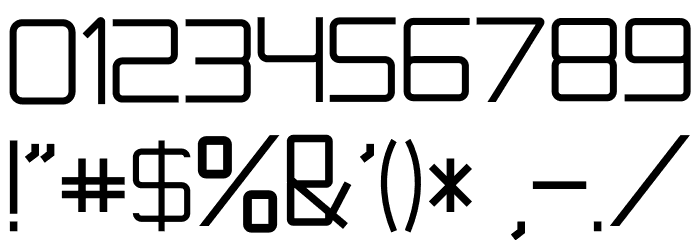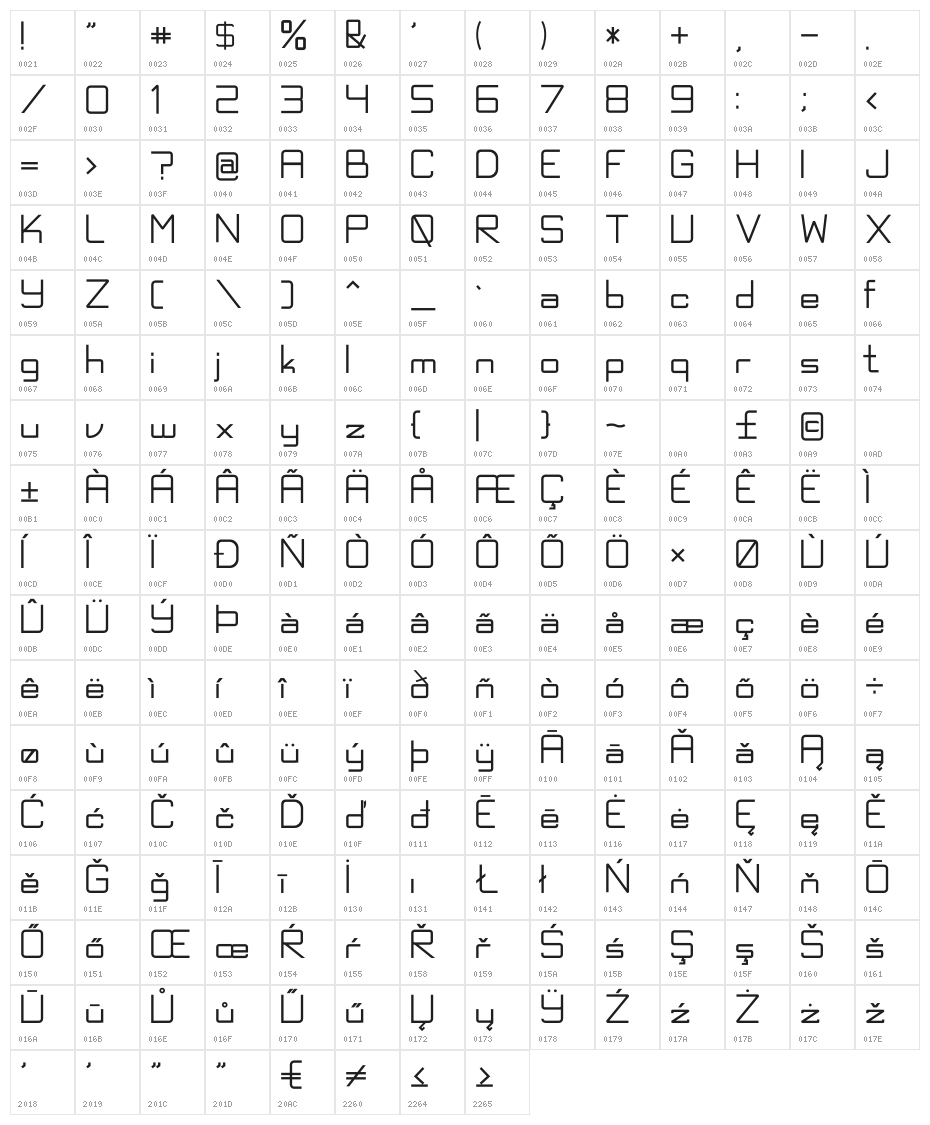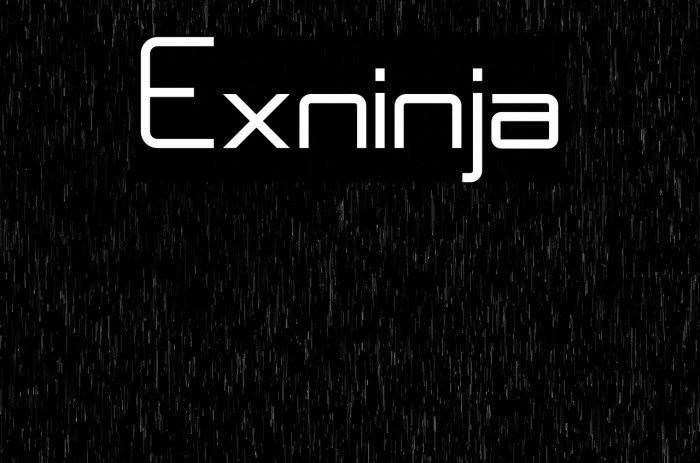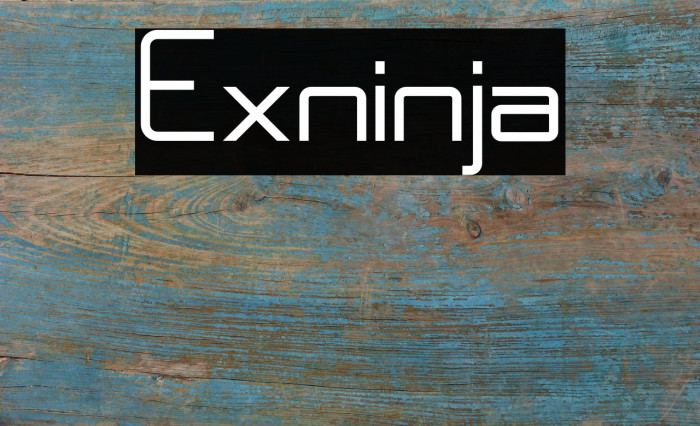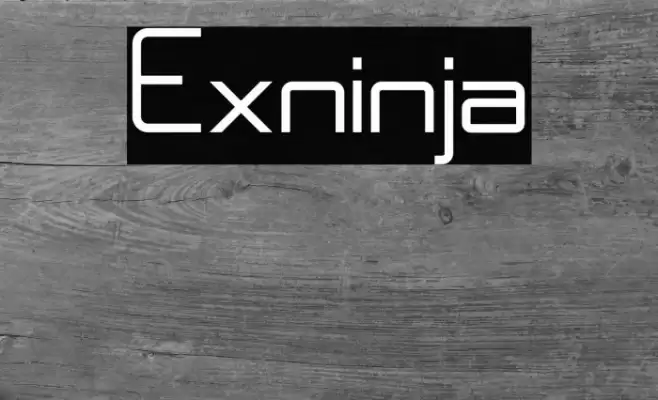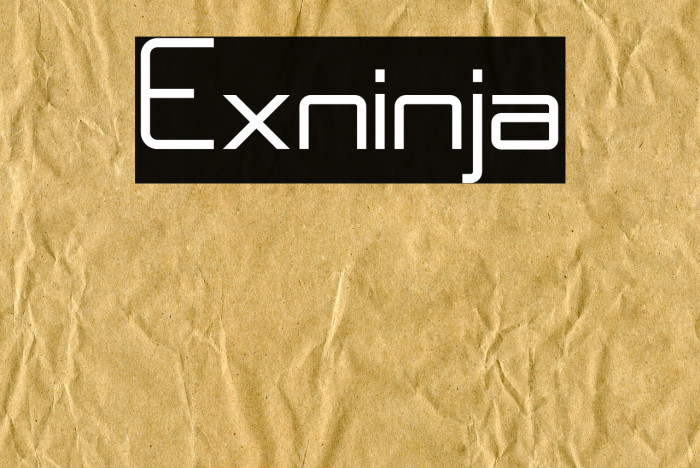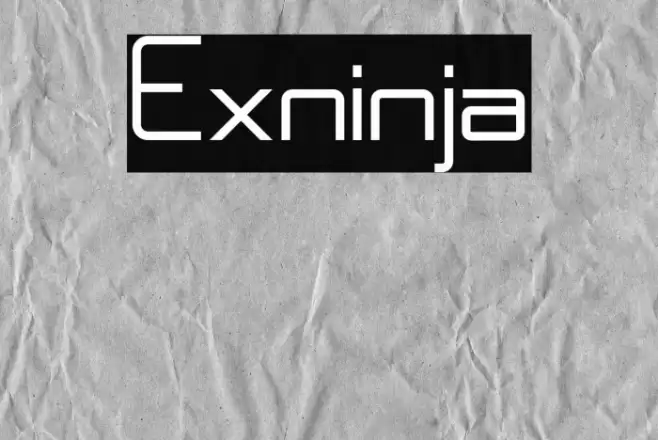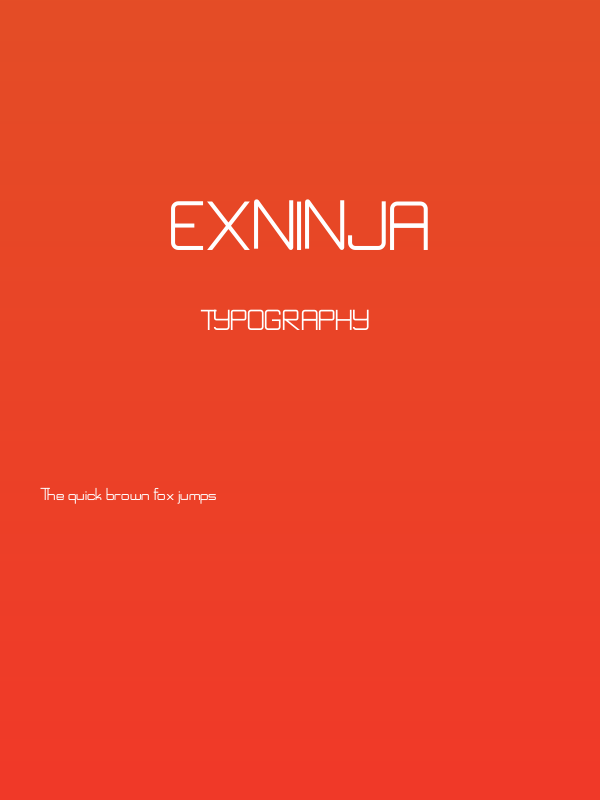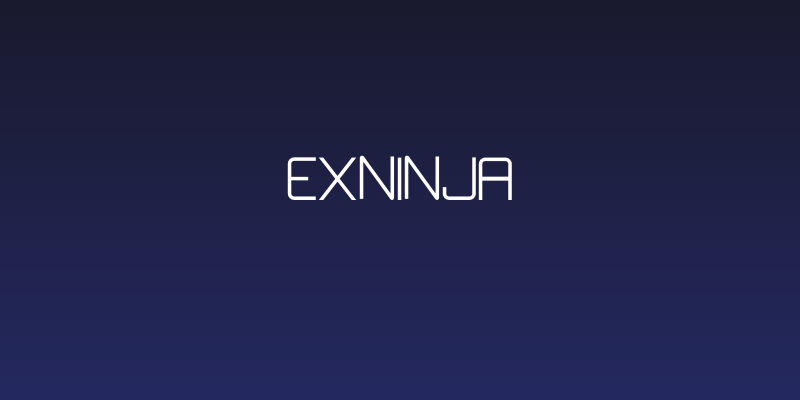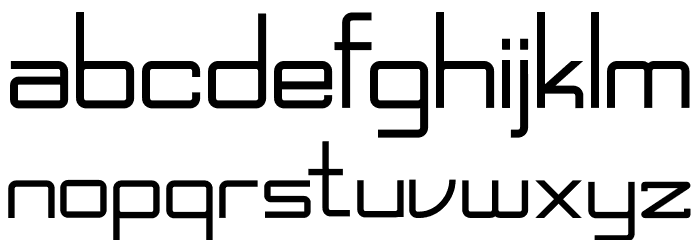
Exninja Font
Exninja Description
This font features a modern, geometric design with clean lines and a minimalist aesthetic. The characters are constructed with uniform stroke widths, giving it a sleek and contemporary appearance. The uppercase and lowercase letters maintain a consistent height, while the numerals and special characters are designed to complement the overall style. The font's structure is open and airy, making it highly legible even at smaller sizes. Its simplicity and precision make it suitable for a wide range of applications, from digital interfaces to print media.